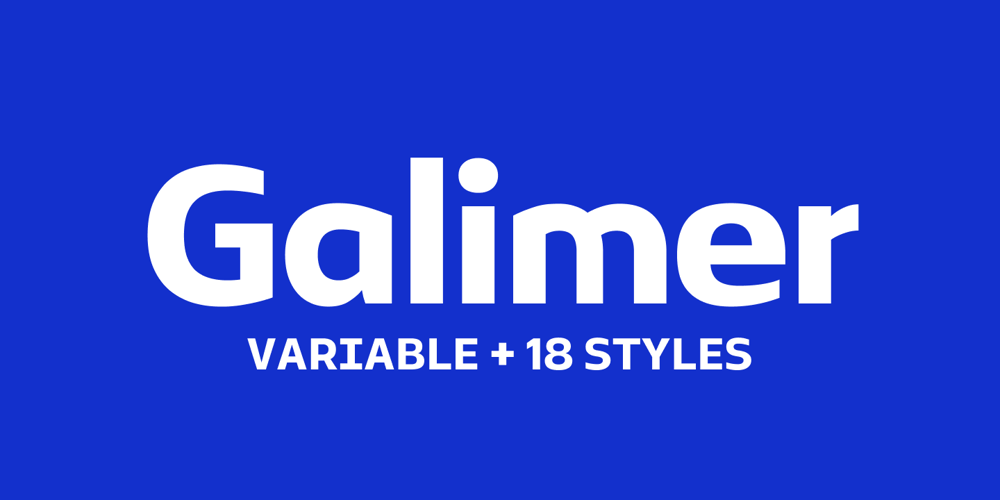
Galimer Font Family was designed by Abhishek Junghare and published by OneSevenPointFive. Galimer contains 19 styles and family package options. Galimer is a humanist variable sans serif family. It comes in 18 styles, 9 weights and their corresponding italics. It supports two axis variability – weight and italic. Each of the weights includes support for 80+ languages worldwide. It is packed with powerful opentype features – linked characters, kerning pairs, fractions, superiors, inferiors, etc. Galimer is perfectly suitable for all platforms (desktop, webfont, printing, etc.)